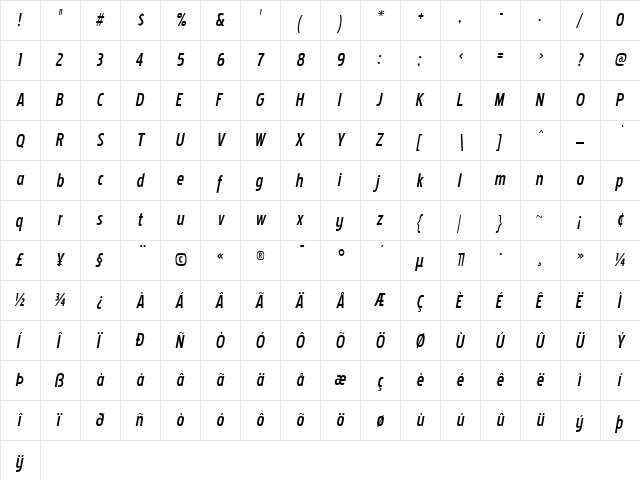
Pakenham Cnd Bk Italic
Foundry Ray Larabie
DesignerRay Larabie
Design Context for Pakenham Cnd Bk Typeface
Pakenham Cnd Bk is a composed and adaptable typeface that performs quietly and consistently across a wide range of design contexts. Its italic angle brings a sense of urgency and motion to the letterforms.